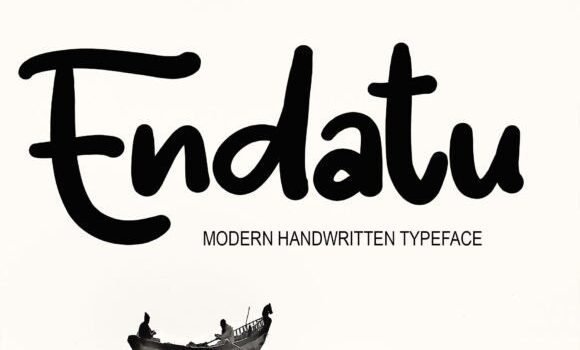
endatu
Endatu Font – Free Download Introduction to Endatu Font Endatu is a modern handwritten typeface. 📸 Preview Gallery 5 images 📌 Product Name Endatu Font 👤 Author Canden Meutuah 📂 Category Explore ⬇️ Download Endatu Font FREE Free Download •